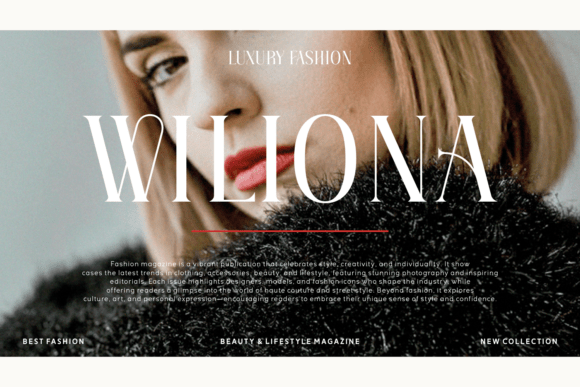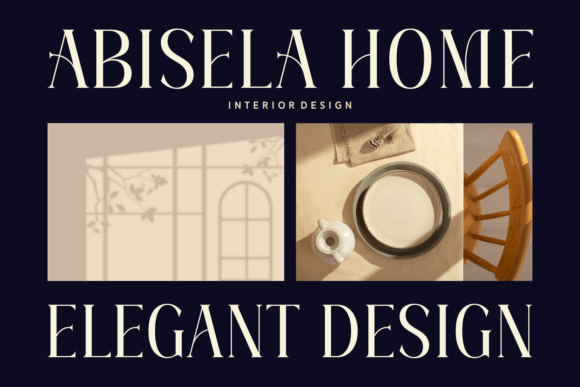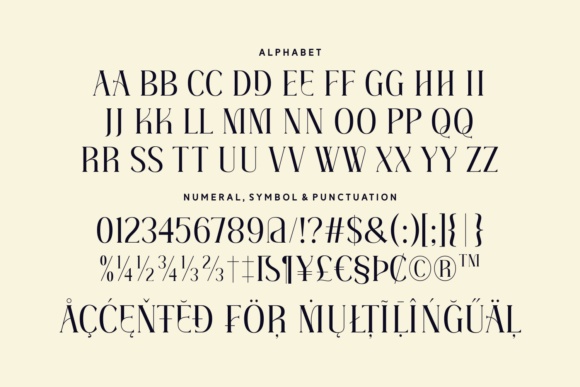
Introduction to Prewed Font
As a designer, there’s nothing quite like the thrill of landing a creative project that requires a touch of elegance and sophistication. You’ve got a client who’s looking for something truly special, and you’re tasked with bringing their vision to life. For me, that moment came when I stumbled upon the Prewed Font – a stunning serif font that exudes luxury and charm. Its delicate flourishes and gentle rhythm make it the perfect choice for high-quality designs that demand a sophisticated and emotional touch.
The Prewed Font is more than just a design resource – it’s a game-changer for designers who want to take their work to the next level. With its transparent background and free download option, it’s an invaluable addition to any designer’s toolkit. Whether you’re creating wedding stationery, event branding, or upscale editorial work, the Prewed Font is sure to leave a lasting impression.
Key Features of Prewed Font
- High-quality, free download font ideal for creative projects and design resources.
- Unique, modern design with a transparent background, allowing for seamless integration into any design.
- Features a clean and minimalist aesthetic, perfect for use in logos, branding, and digital design.
- Designed to be versatile and adaptable, making it suitable for a wide range of creative projects and design resources.
Honest Review: Prewed Font
As a designer, I’m always on the lookout for high-quality design resources to elevate my creative projects. Recently, I came across the Prewed Font, and I’m excited to share my thoughts on it.
Here are the things that work well for me:
- ✨ Clean and minimalist design aesthetic, making it perfect for modern branding and design projects
- ✨ Supports transparent backgrounds, giving me flexibility when working with complex design compositions
- ⚠️ Limited font weights and styles available, which may not be suitable for all design projects
- ⚠️ Not ideal for use in small text sizes due to its minimalist design
Overall, I’m impressed with the Prewed Font’s clean design and flexibility. While it may not be perfect for every design project, it’s a great addition to any designer’s toolkit, especially for those working on modern creative projects.
Tips for Getting the Most Out of Prewed Font
Experiment with different font sizes and styles to achieve the desired look. Use Prewed Font in combination with other design elements to create visually appealing designs.
Prewed Font is ideal for various design projects, including business presentations, social media graphics, and creative projects. Its high-quality design and transparent background make it a versatile design resource.
Alternatives to Prewed Font
Open Sans is a high-quality, free font suitable for a wide range of creative projects. It features a clean and modern design, making it perfect for use in digital products, web applications, and presentations.
When to use: Open Sans is ideal for projects that require a clean and simple design. It’s particularly useful for headings and body text in digital products.
Comparison to Prewed Font: Open Sans has a more modern and clean design compared to Prewed Font, making it a great alternative for designers who want a high-quality font with a transparent background.
Lato is a free font that offers a unique blend of modern and traditional design elements. It’s a great resource for designers who want to create a high-quality design without breaking the bank.
When to use: Lato is perfect for projects that require a unique and elegant design. It’s particularly useful for headings and titles in creative projects.